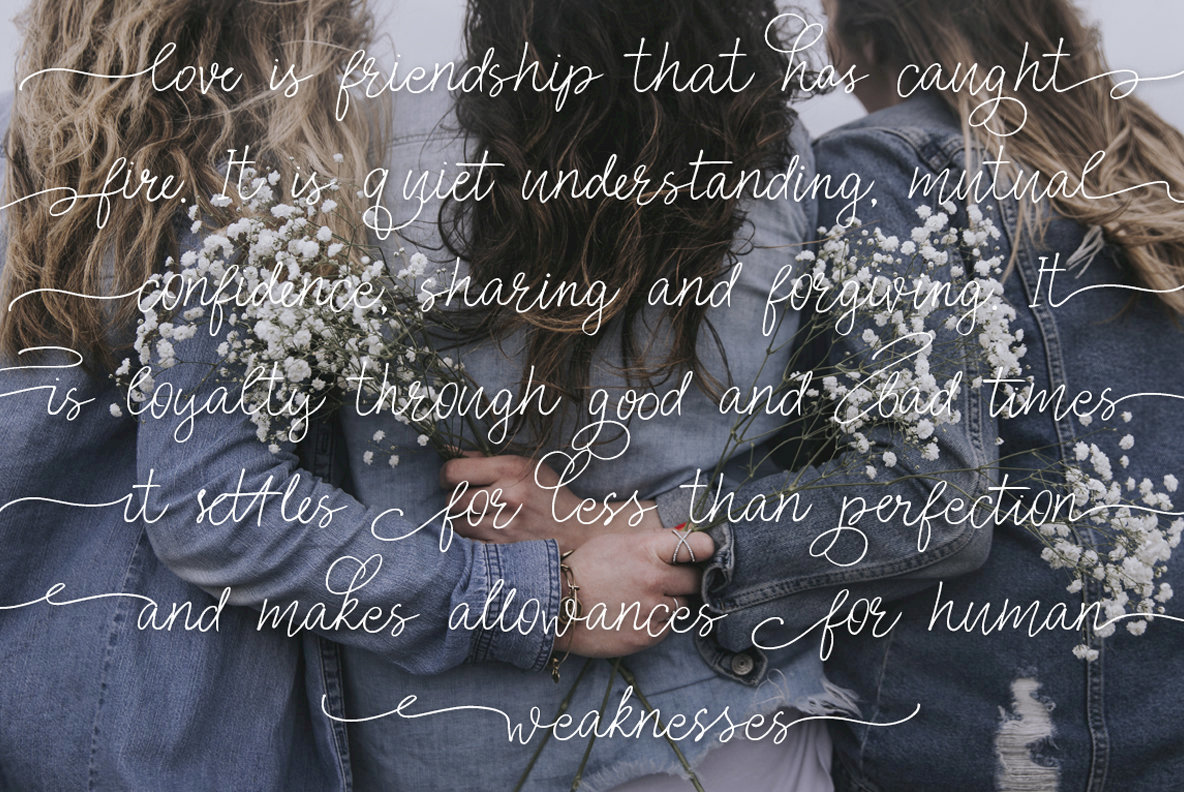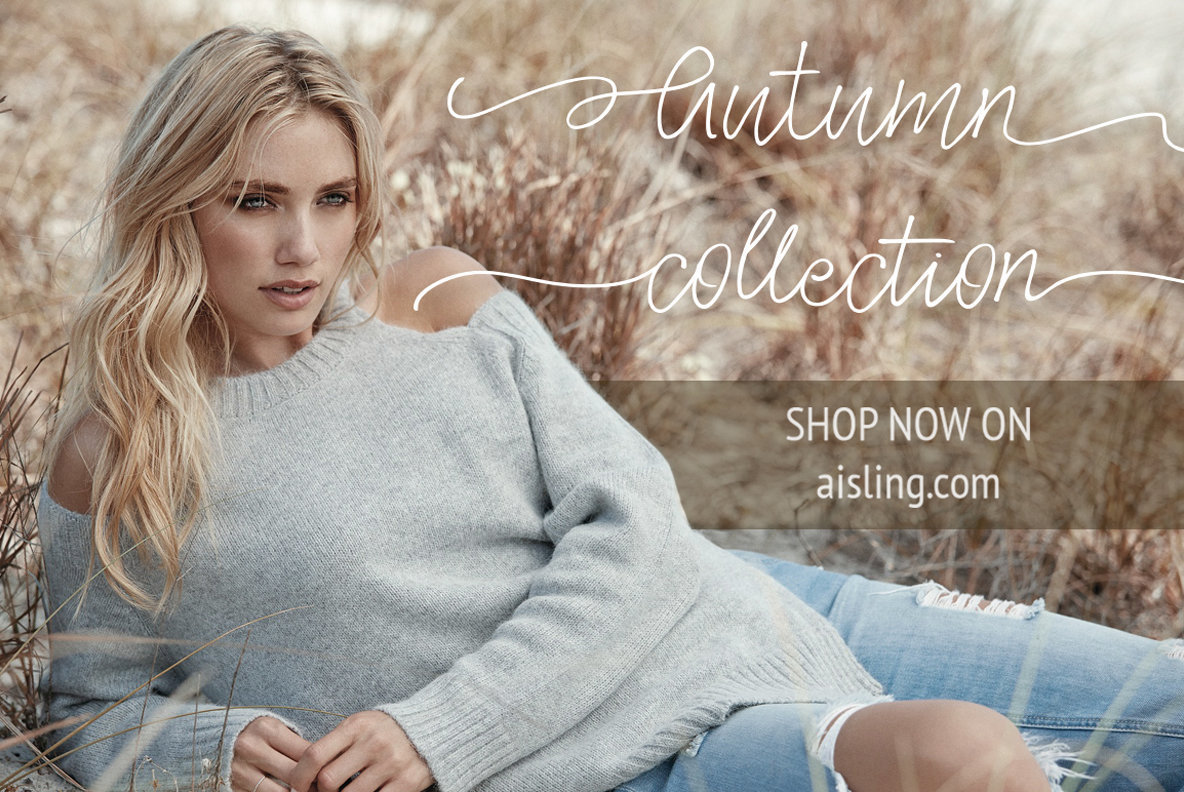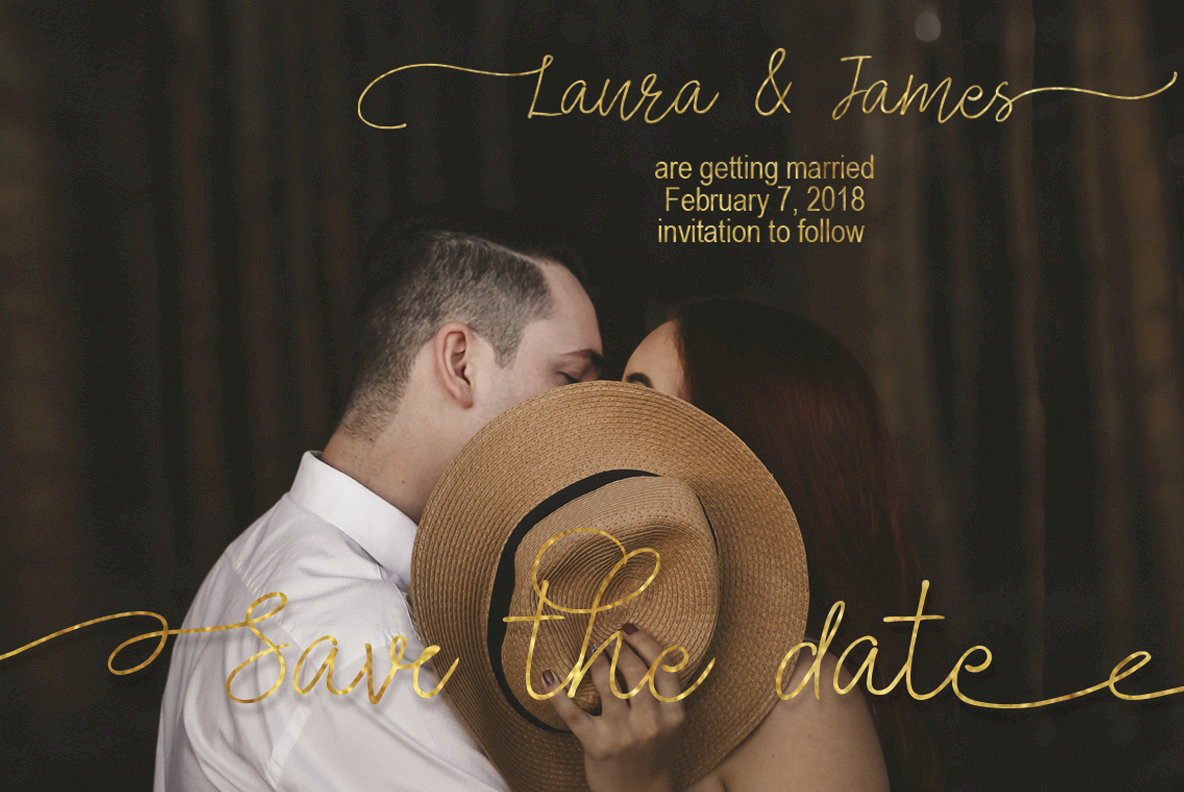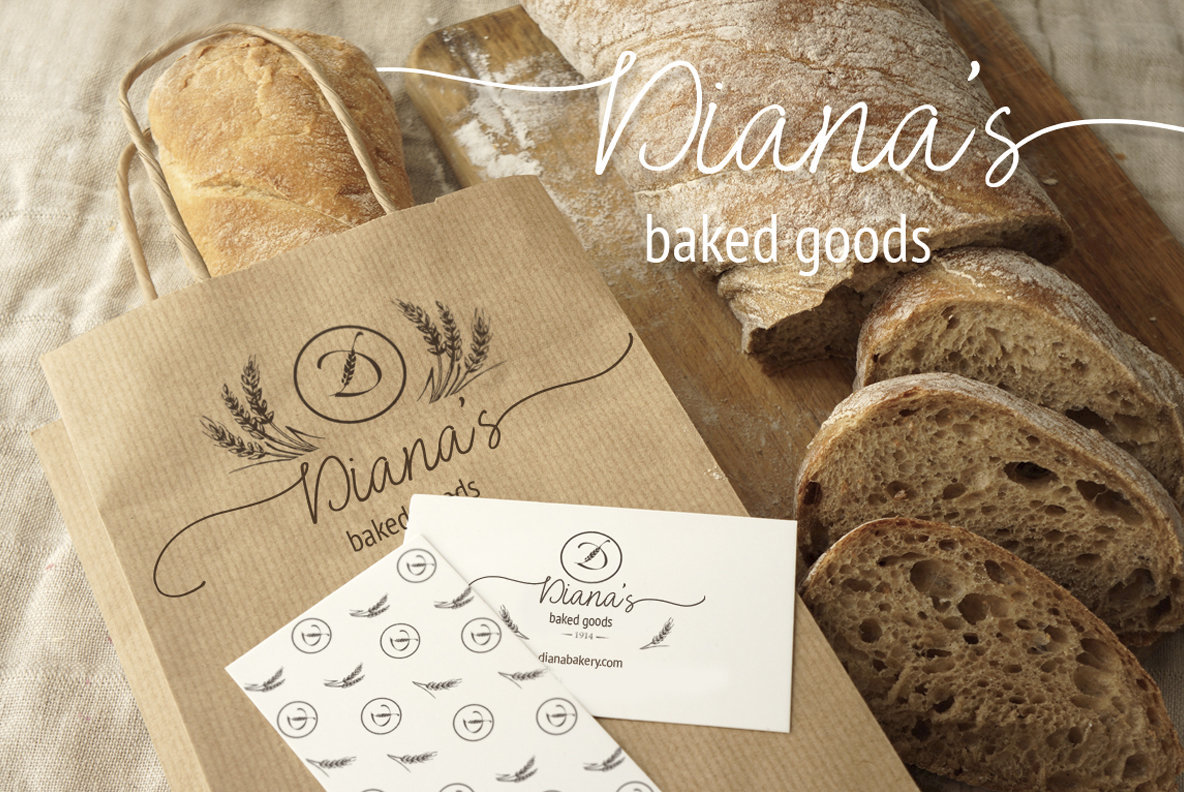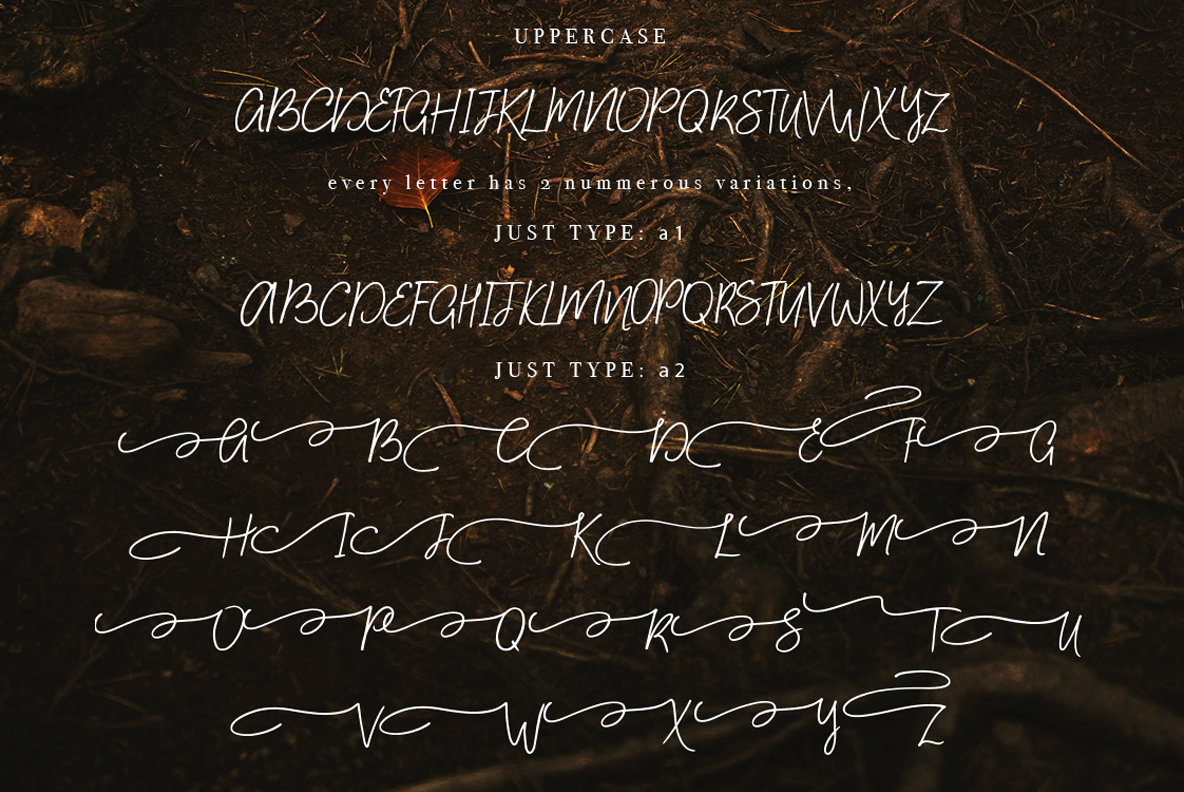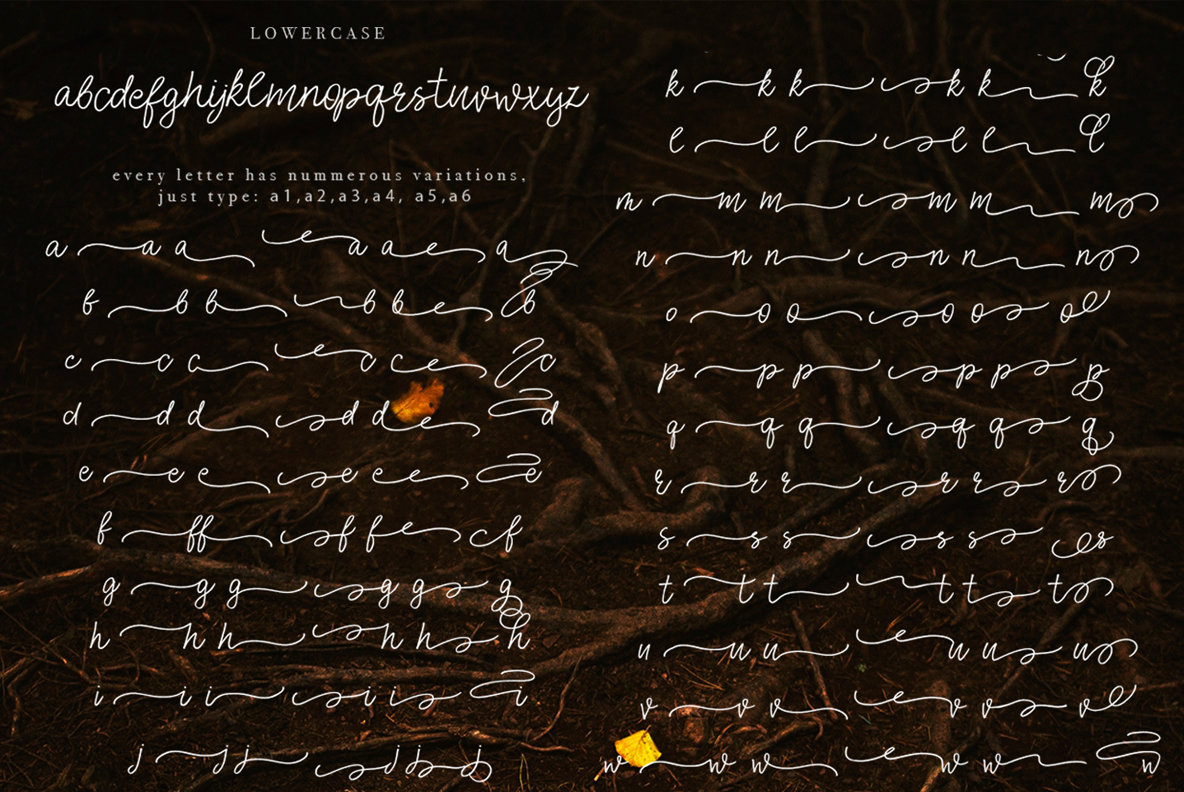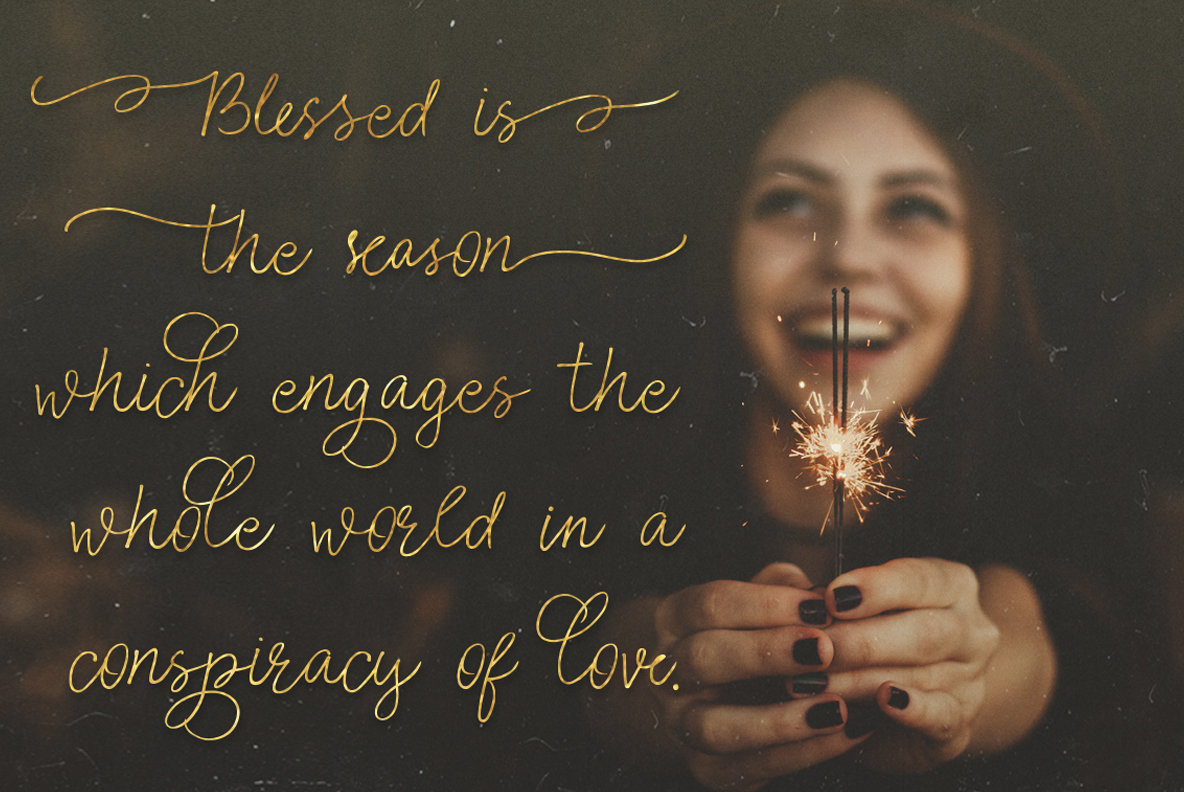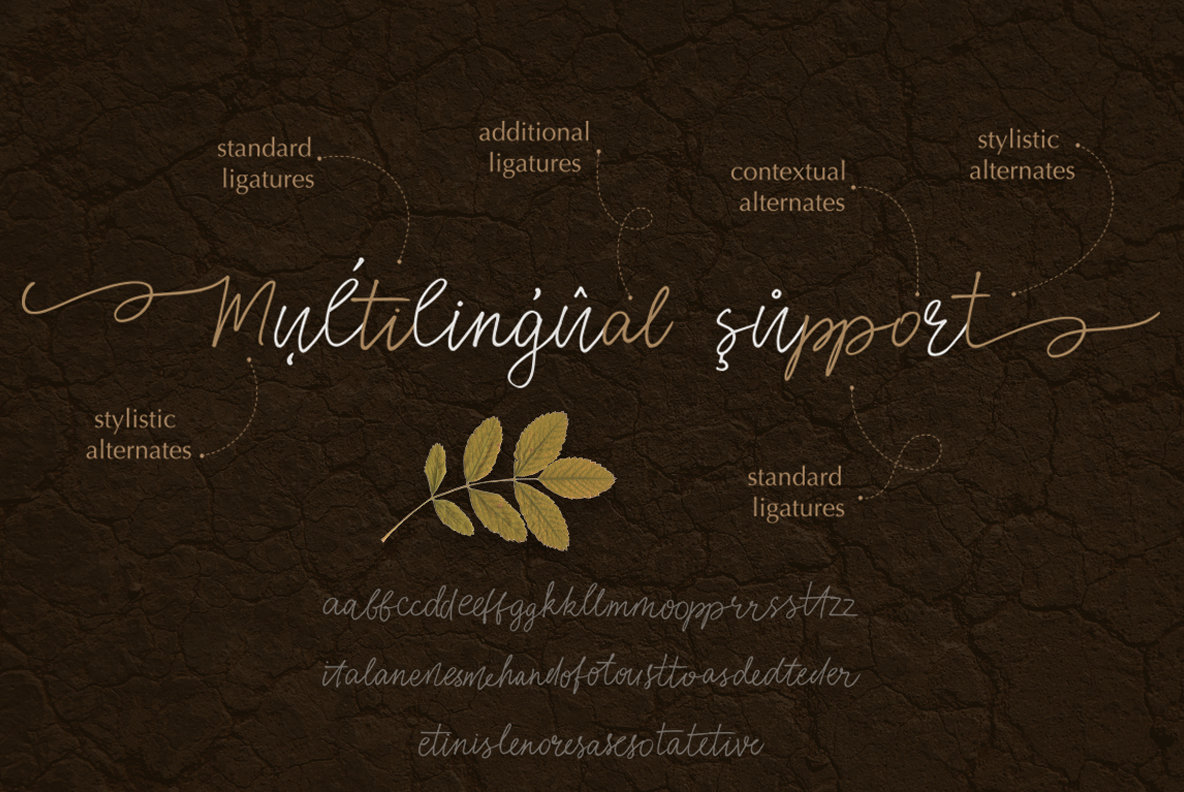
Aisling Font
Aisling Regular
Aisling is a script font that captures the enchanting spirit of Irish artistry with its intricate design. With a diverse range of letter variants, it offers remarkable flexibility for those looking to infuse their projects with a touch of hand-drawn elegance.Aisling: Evoking Irish Charm in Script